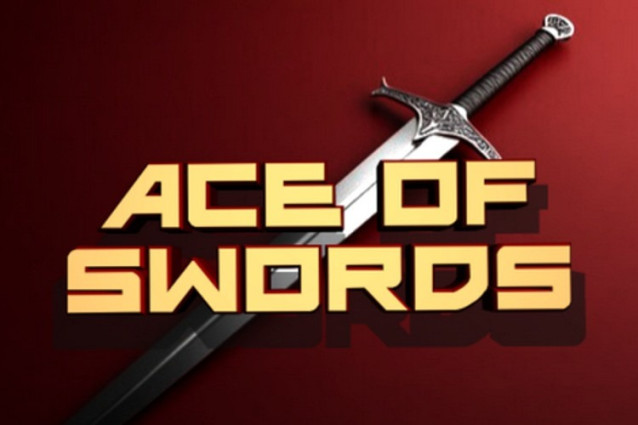
Ace Of Swords Font has a bold, blocky, and modern appearance that conveys strength and impact. Its thick lettering with sharp edges gives a sense of power and authority, matching the imagery of the sword behind it. The 3D shadow effect adds depth, making the text stand out dramatically against the dark red background. Overall, the font style perfectly complements the theme of battle, courage, and determination suggested by the title.
ACE OF SWORDS features a collection of bold and dynamic font styles that convey strength, motion, and determination. The different designs range from sleek, futuristic forms to thick, heavy lettering, each variation emphasizing power and intensity. Many versions have sharp angles, clean lines, and a sense of forward momentum, evoking themes of battle, precision, and courage. Whether solid or outlined, each font style captures the commanding spirit of a sword’s edge—sharp, confident, and ready for action.